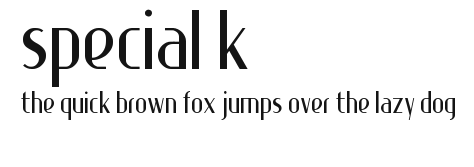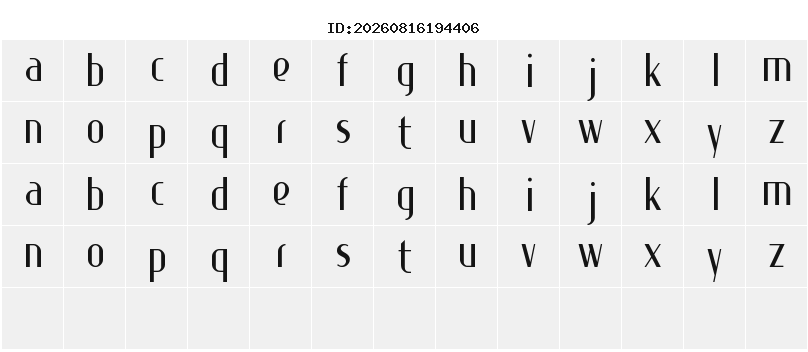
• Font Name: Special K
• Full Font Name: Special K
About Special K.ttf
Special K.ttf is a modern, elegant sans-serif font designed for ultimate readability and visual harmony. Perfect for branding, headlines, web design, and print materials.